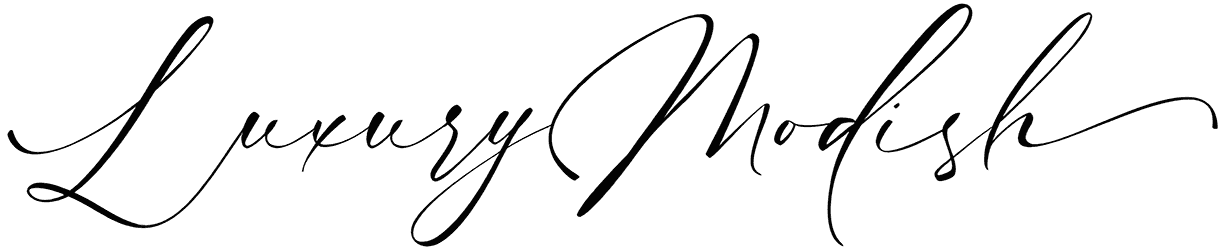
Luxury Modish Font
Having a luxurious and noble style will make your design stand out, and this elegant calligraphy font has such a visual. The smooth and delicate form of the Luxury Modish font’s letters is going to throw a delightful vibe into your design. Put this fashion font on your new layouts, namely a romance novel book cover, and make them mesmerizing.